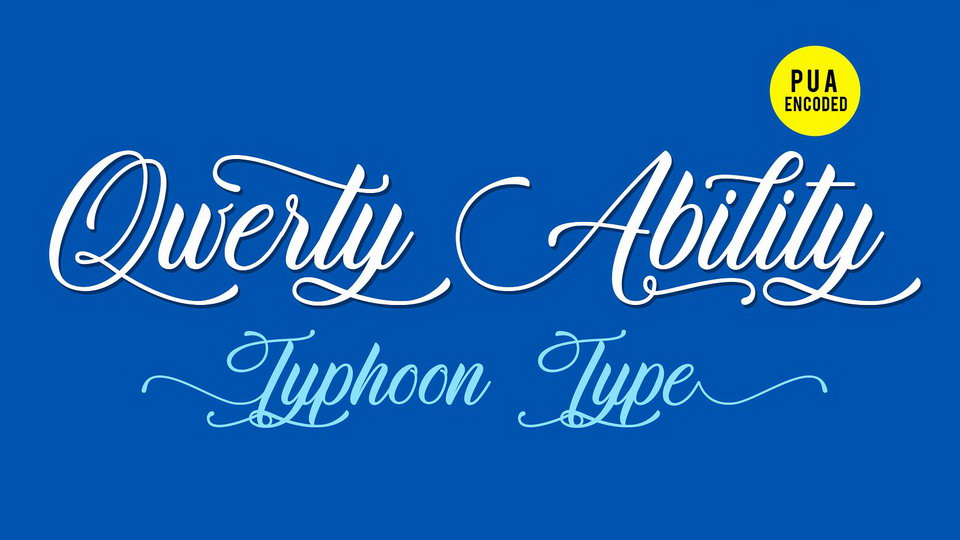
Download Qwerty Ability font, a stunning modern script fon with a decorative characters. Perfect for logos, name tag, advertising, product packaging, clothing, social media & greeting cards.
Designer: TyphoonType